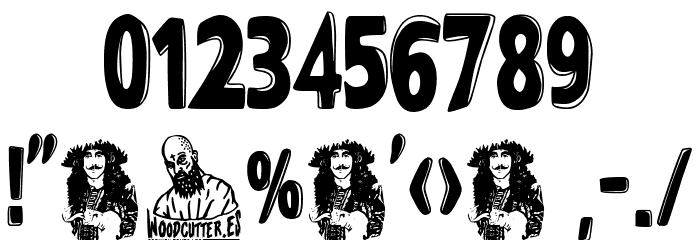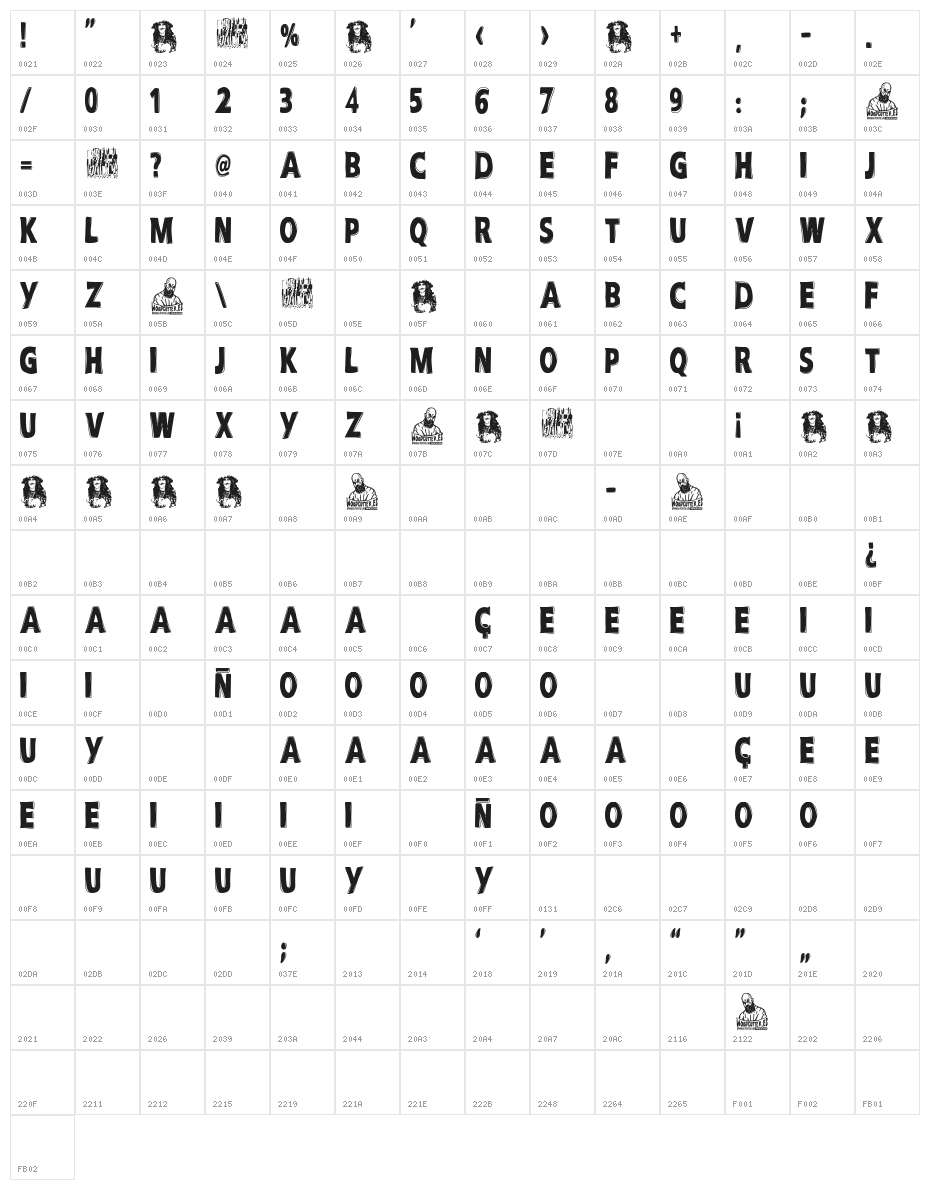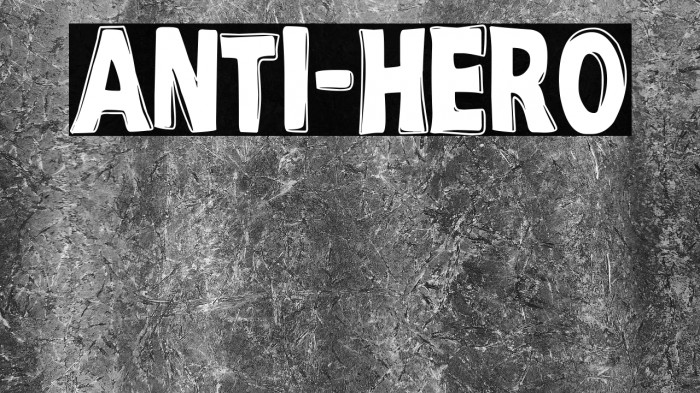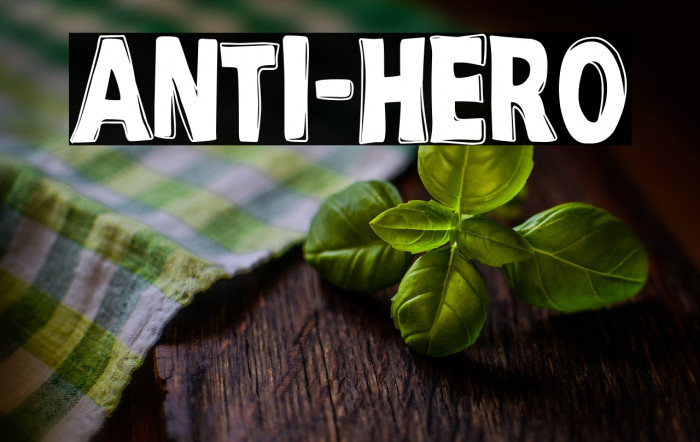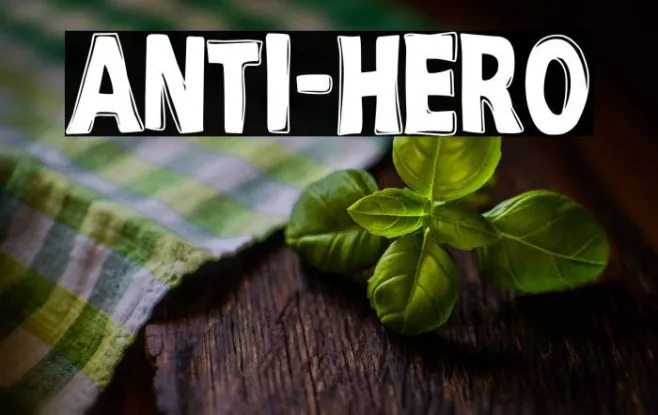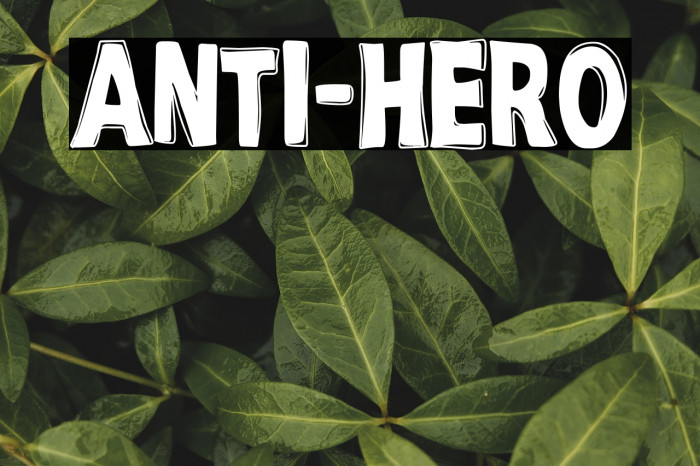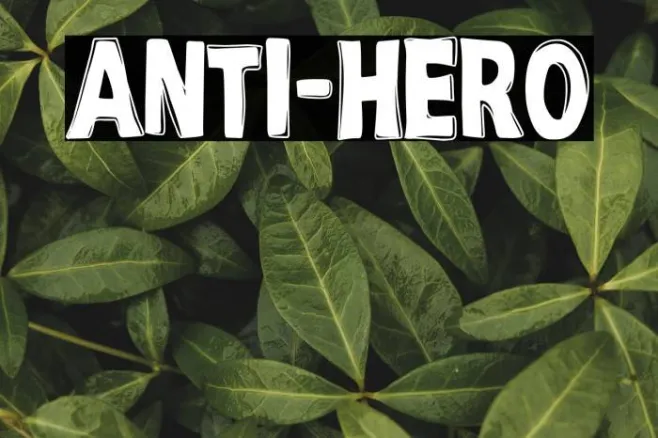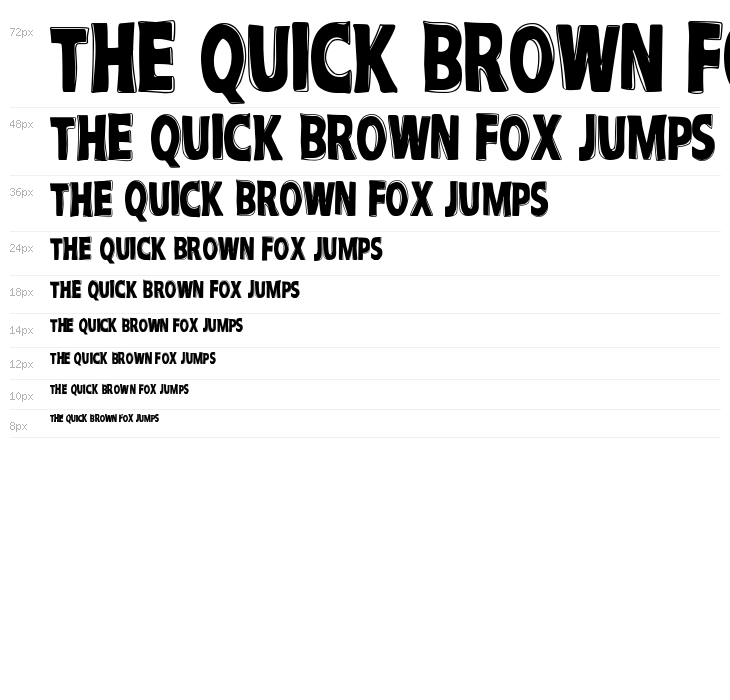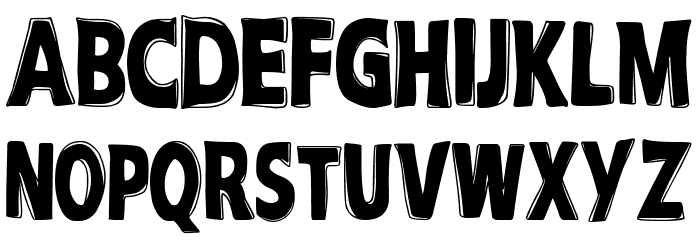
Anti-Hero Font
Anti-Hero Description
This font features bold, dynamic characters with a playful and slightly rebellious style. The letters have a hand-drawn appearance with uneven strokes and a slight slant, giving them a lively and energetic feel. The boldness of the characters is accentuated by the thick outlines, which add a sense of depth and dimension. The numbers and special characters maintain the same energetic style, making the font suitable for eye-catching designs. The overall look is both modern and quirky, perfect for projects that require a touch of personality and flair.
| Overall Style | Playful, Modern |
| Proposed Projects | Ideal for comic books, posters, children's books, and playful branding. |